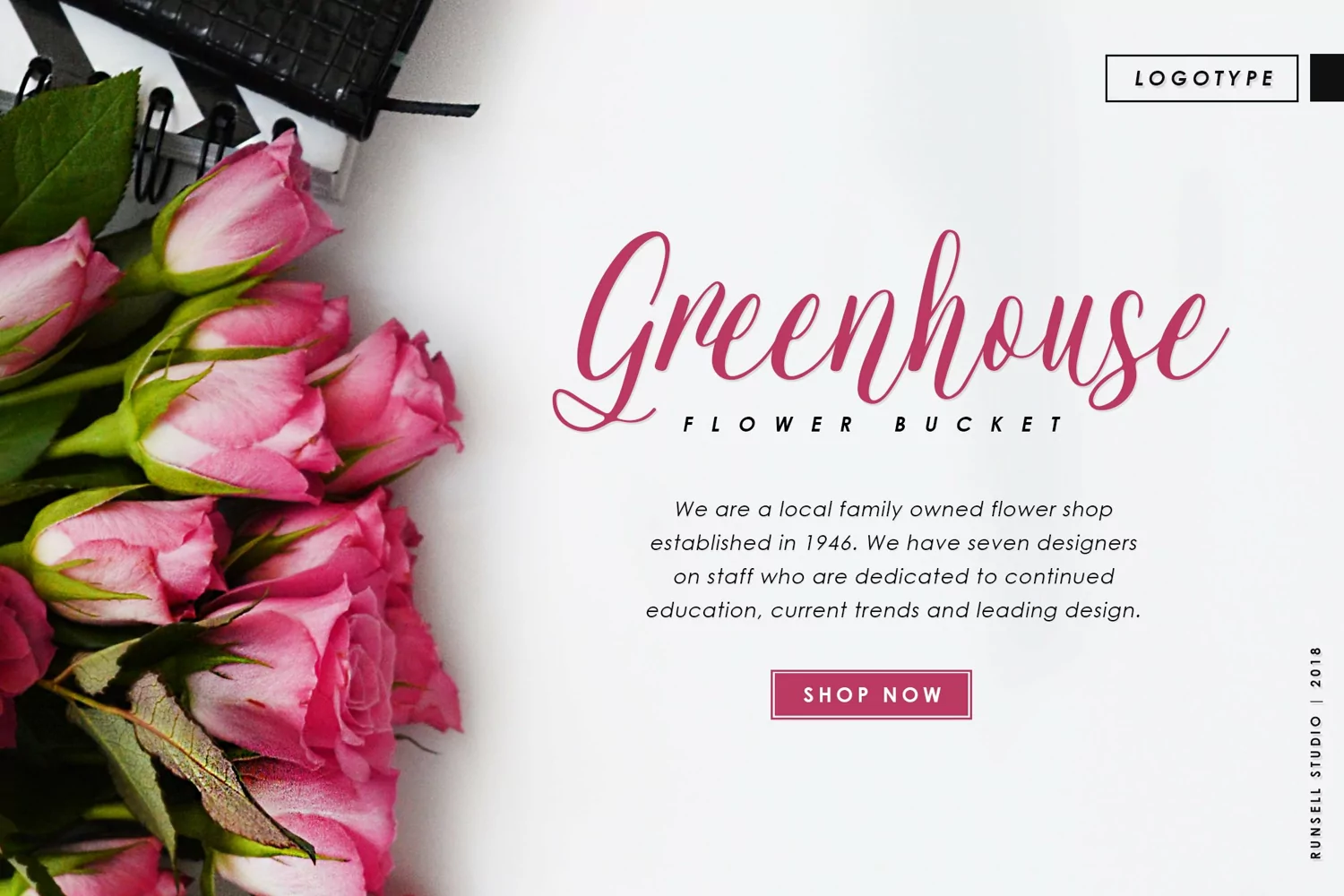
Introducing new modern script font,
Jessie Odelya a perfectly elegant and beauty font pair, that include two style modern script fonts. This fonts collection are stylish, fresh and ideal for adding the special look to your designs.
This font matches applies in some designs such as the logotype, brand, magazine, website or blog headlines, packaging, branding, qoutes, invitation cards, greeting cards, business cards, and wedding more.Jessie Odelya allows full access the characters without having special designing software. This fonts are support for mutilingual languages.
Jessie Odelya Includes:- Uppercase, lowercase, numeral, punctuation and symbol